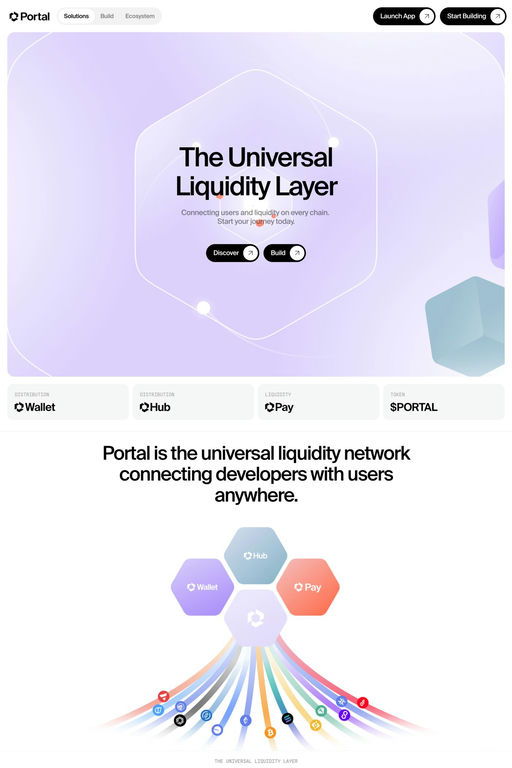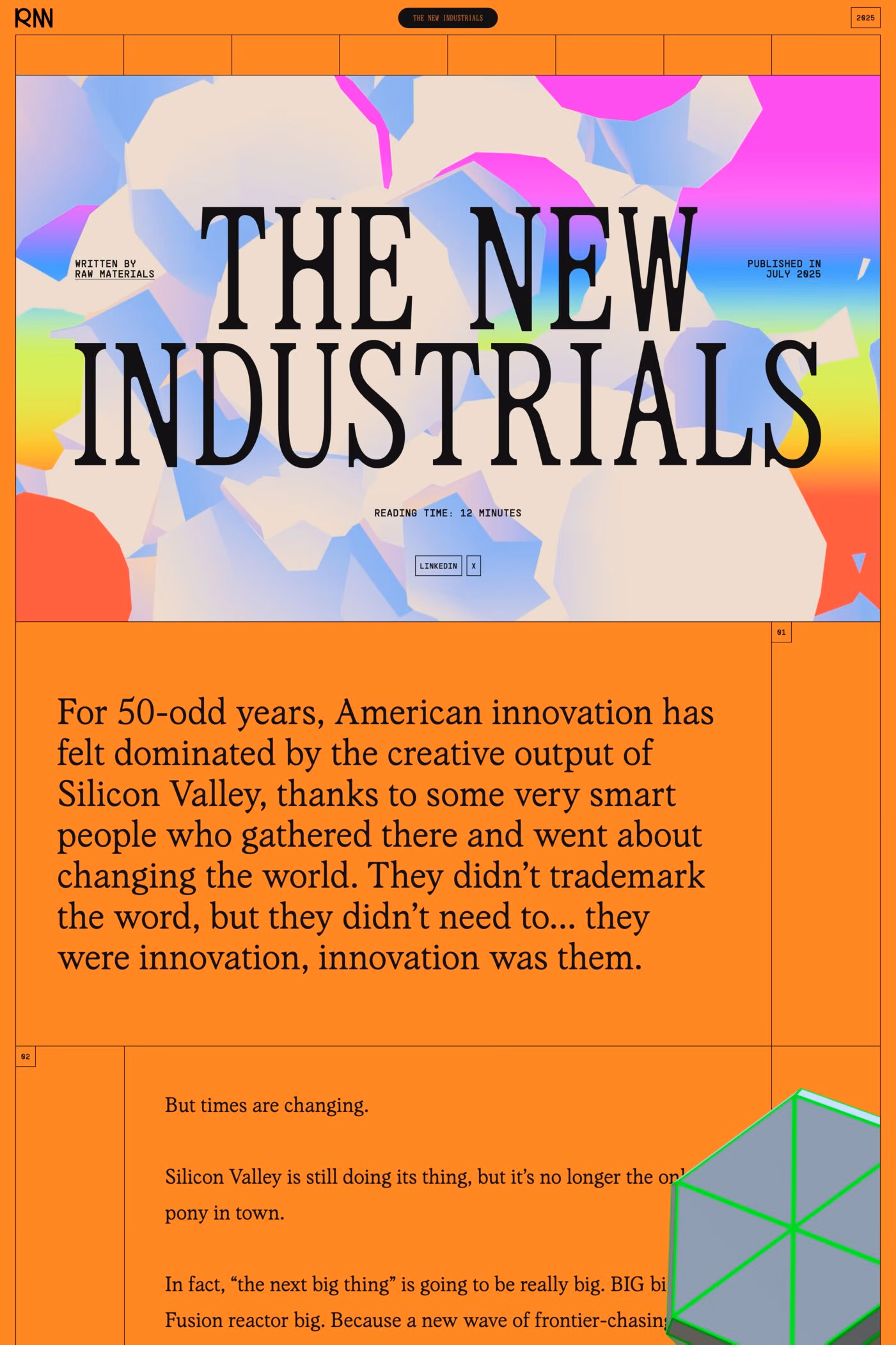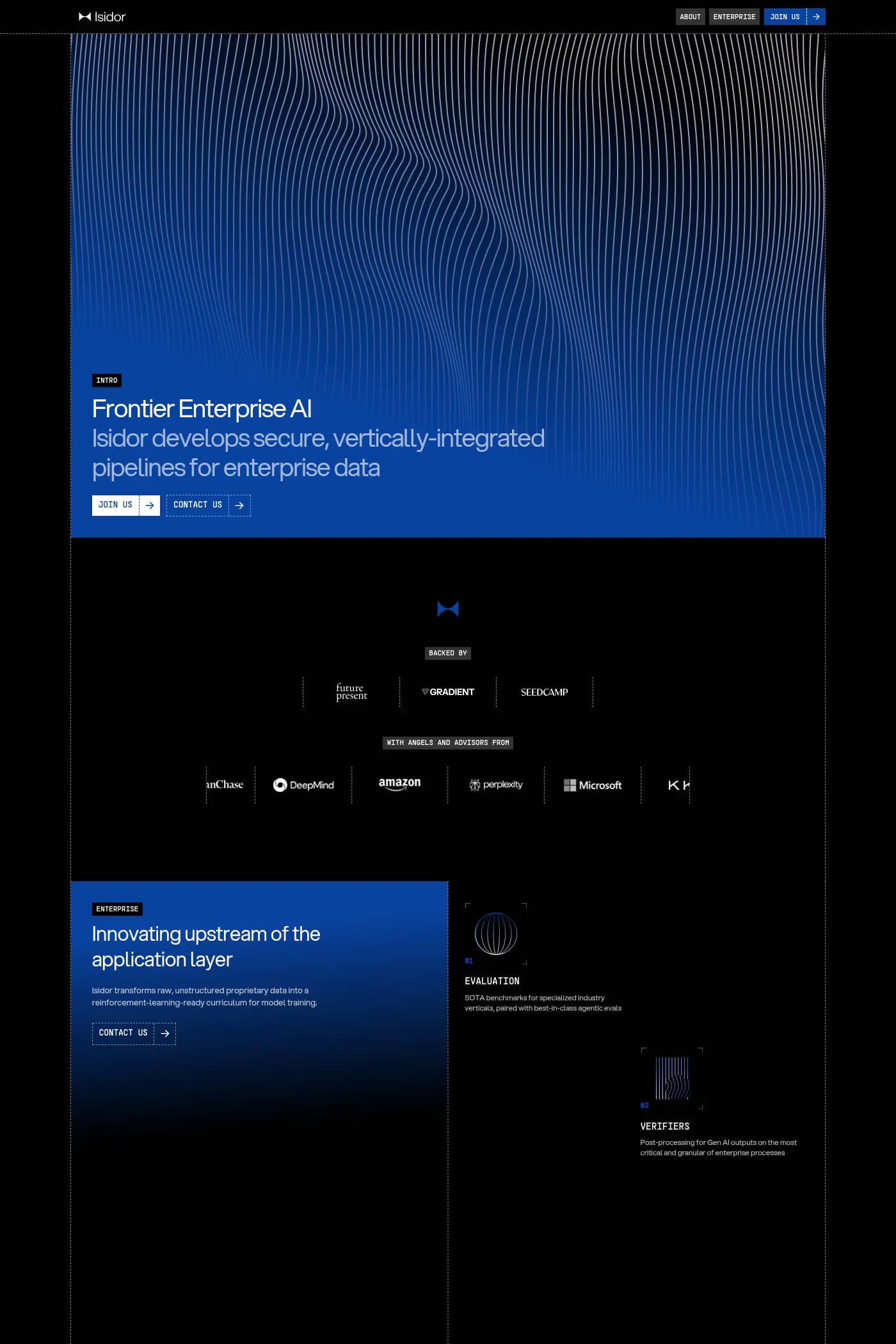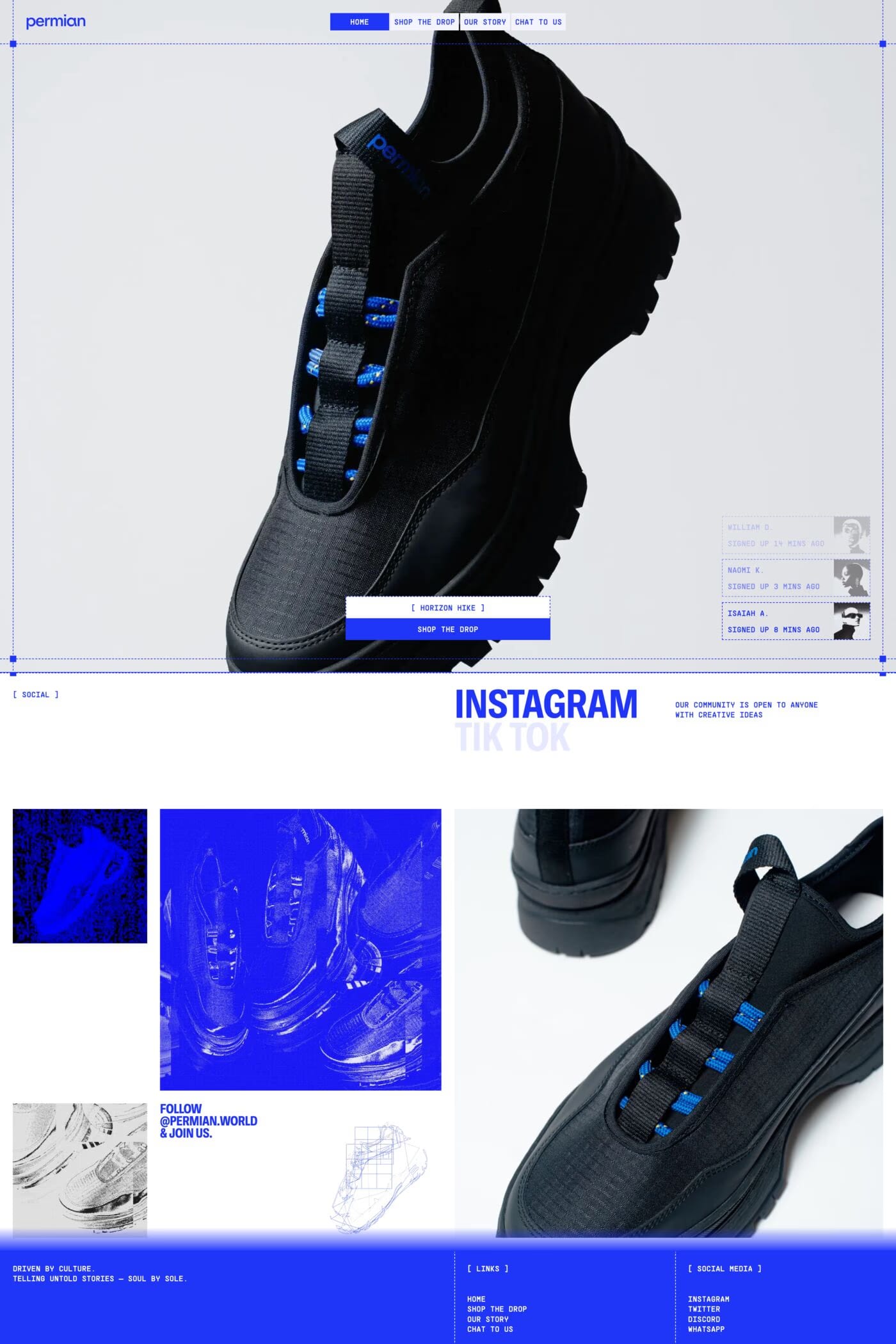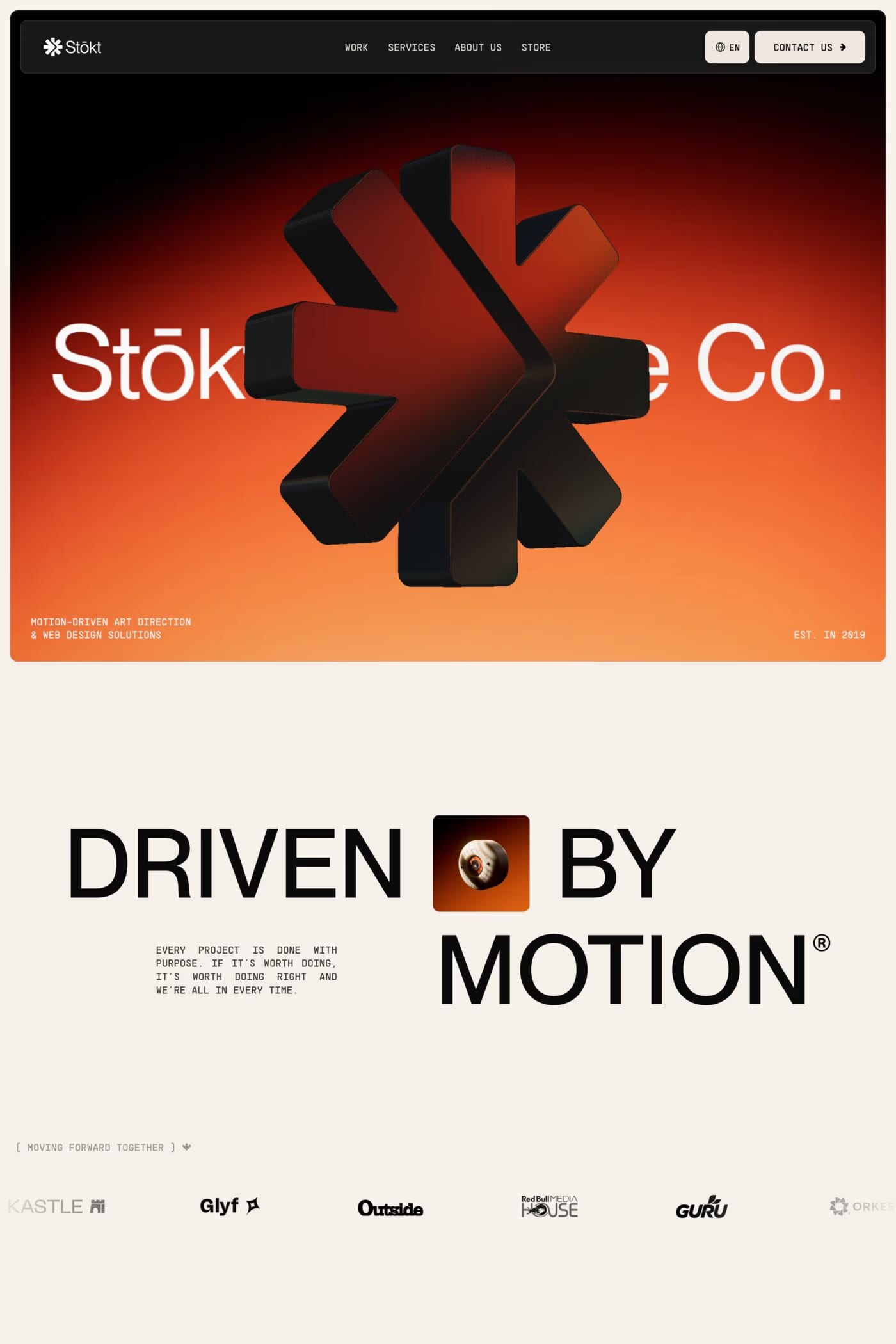
Supply Mono is a monospace typeface from Pangram.
Supply Mono is a solid and versatile monospace typeface inspired by industrial design and architecture.